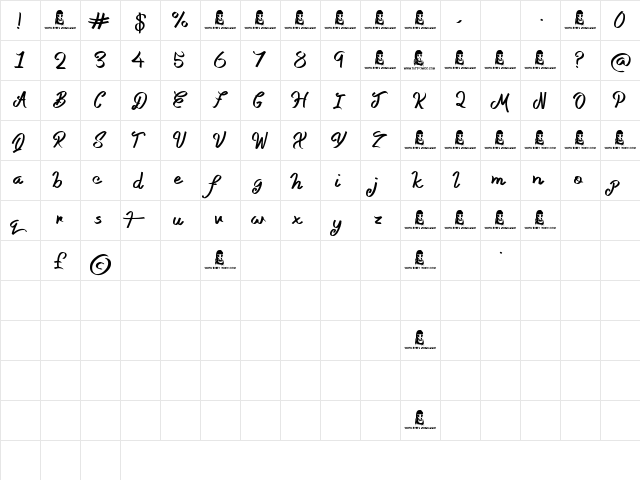
Queens Perfume Regular
| Foundry | Jonathan S. Harris |
| Designer | Jonathan Stephen Harris |
Design Context for Queens Perfume Typeface
Queens Perfume takes a measured approach to typography — its balanced proportions and neutral character make it a reliable workhorse for both digital and print work.
Pro Tip: Use Queens Perfume in both headline and body roles to test its range before committing to a single application.